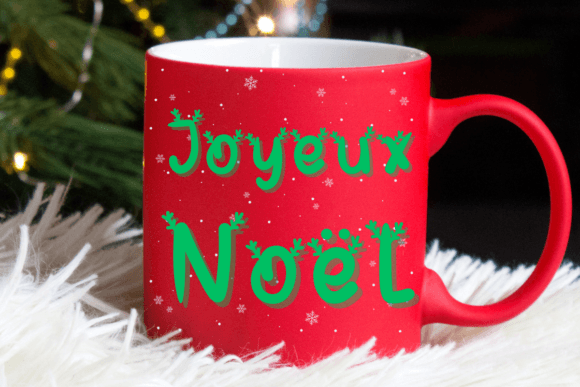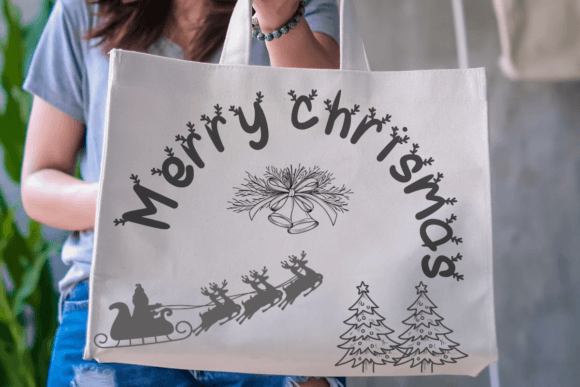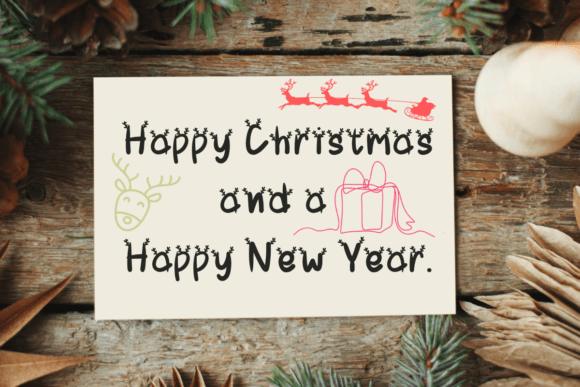
Introduction to Little Reindeer Font
Little Reindeer is a simple, neat, and adaptable handwritten font.
No matter the topic, this font will be an incredible asset to your fonts’ library, as it has the potential to elevate any creation Add this lovely Little Reindeer to your creations and take your designs to the next level.
Key Features of Little Reindeer Font
Why Choose Little Reindeer Font?
Little Reindeer Font offers exceptional quality and versatility, making it a valuable addition to your design toolkit. Whether you’re creating for personal projects or commercial use, Little Reindeer Font delivers professional results.